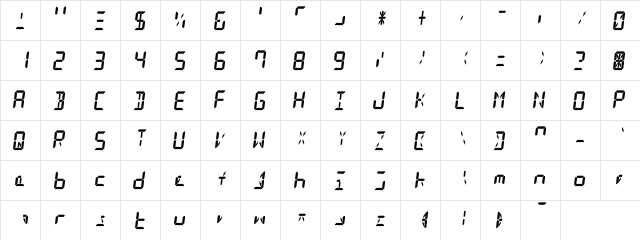
GD-Digit13LED-OTF Regular
Design Context for GD-Digit13LED-OTF Typeface
GD-Digit13LED-OTF channels digital-age aesthetics through its sharp, structured letterforms — ideal for brands that want to signal innovation.